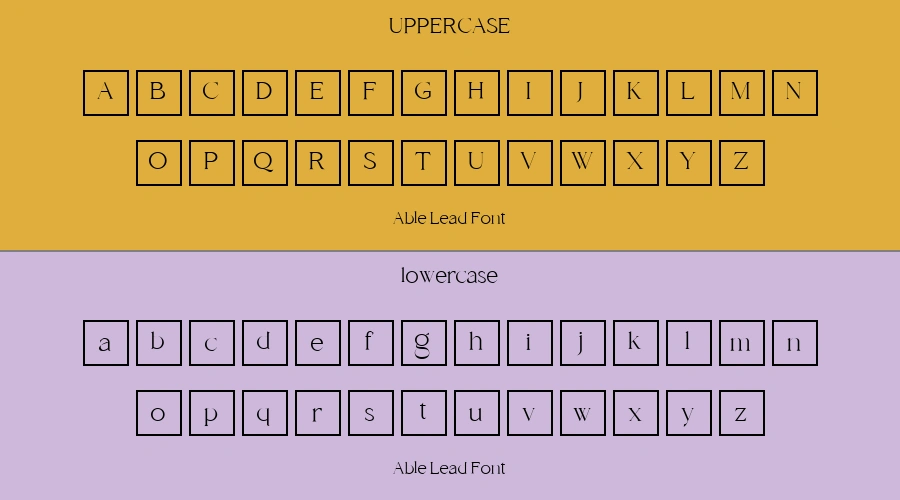
About Able Lead Font
Able Lead Font stands out for its distinctive combination of ornamental caps and artistic impact. Ideal for social media content, it provides the reliability and market relevance that professional projects demand. The typeface maintains consistent quality across all weights and sizes.
Key features include refined playful elements and practical stylistic sets, enhancing typographic expression. In pull quotes applications, Able Lead Font demonstrates exceptional special character access. The aperture size and technical innovation contribute to its distinctive character and professional appeal.